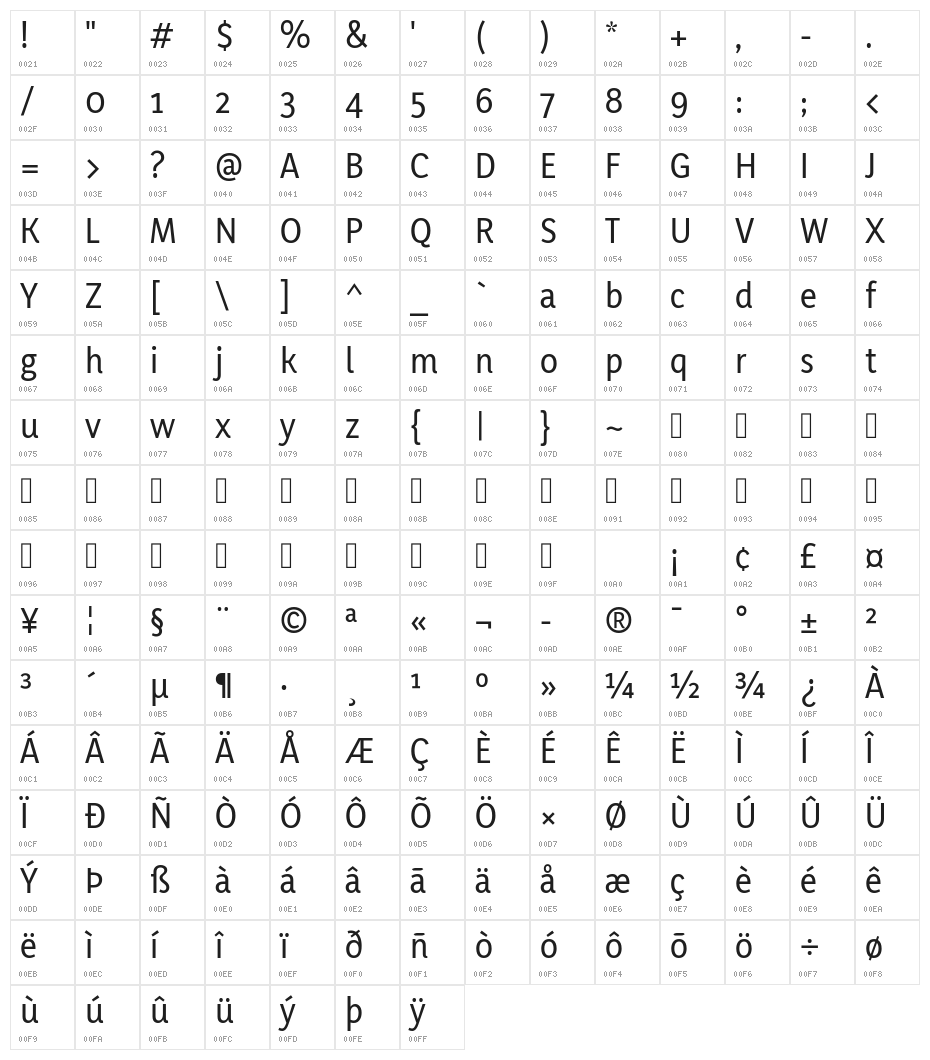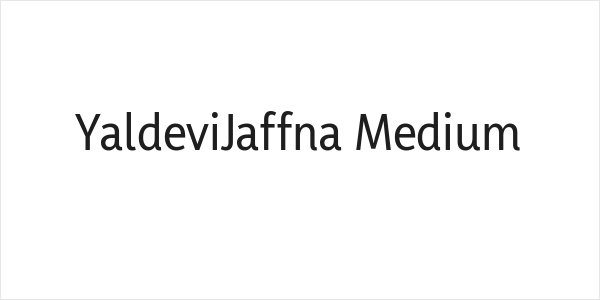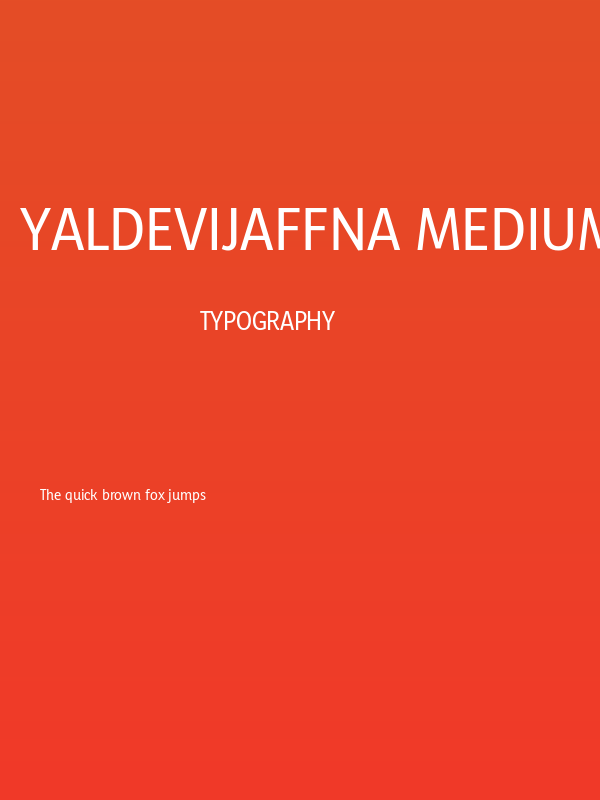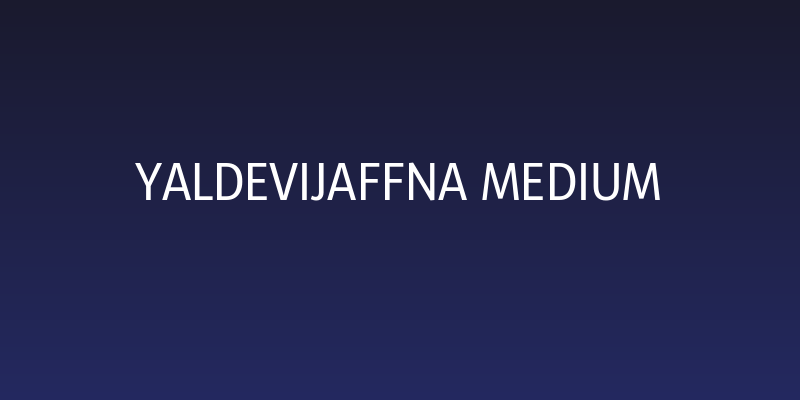
YaldeviJaffna Medium Font
YaldeviJaffna Medium Description
This font features a clean and modern sans-serif design, characterized by its straightforward and legible letterforms. The characters are well-proportioned with a consistent stroke width, offering a balanced and harmonious appearance. The uppercase and lowercase letters maintain a uniform height, enhancing readability. The numerals are clear and distinct, making them suitable for various applications. Special characters are included, providing versatility for different contexts. The overall design is minimalistic, making it ideal for contemporary projects that require a professional and uncluttered look.